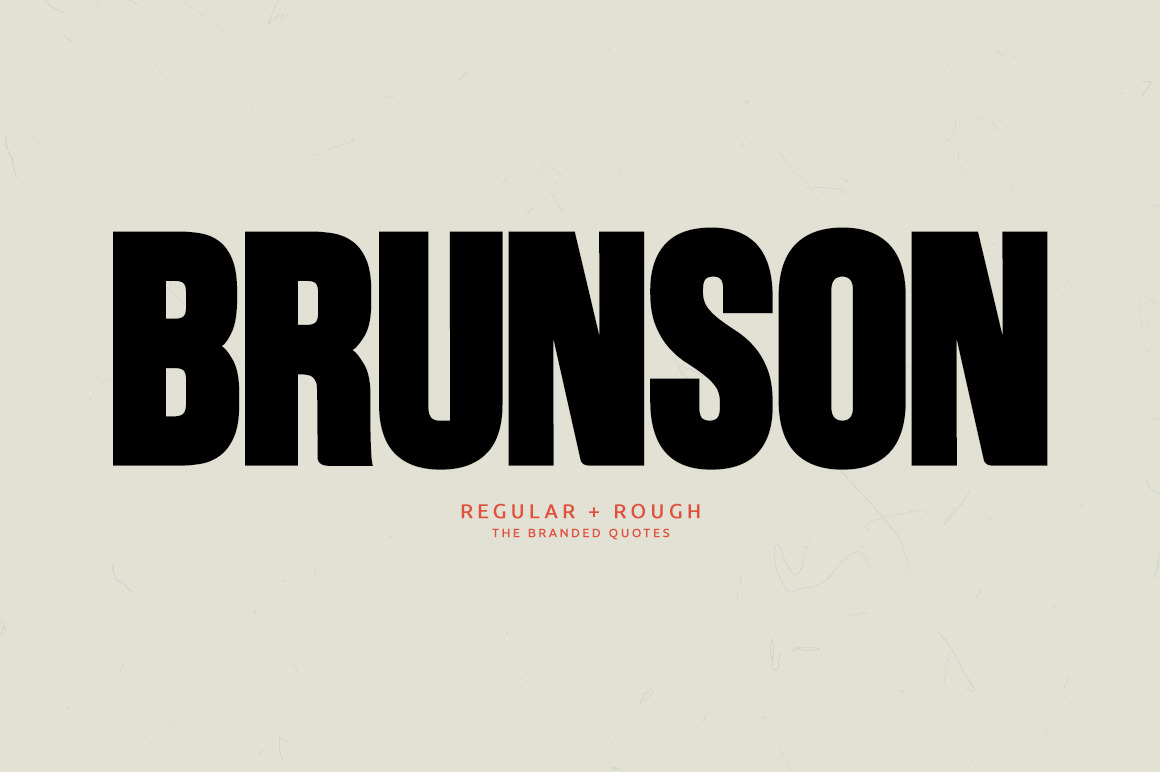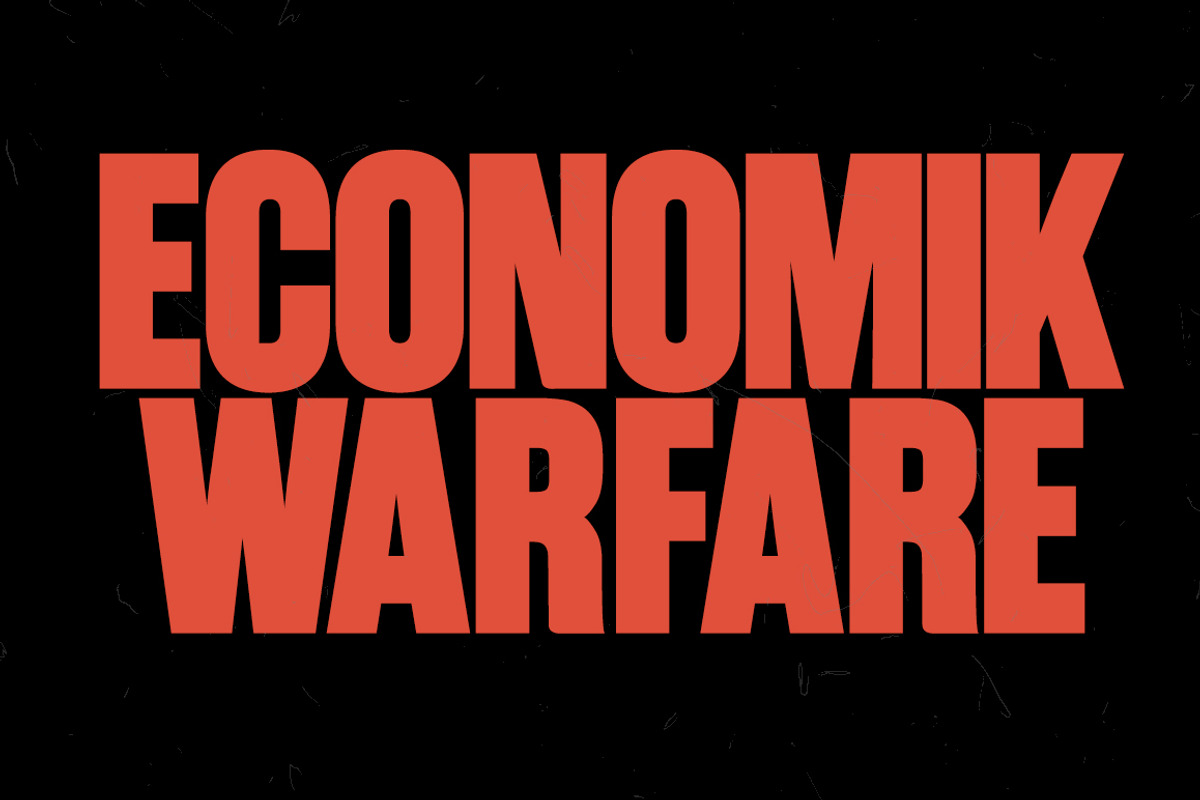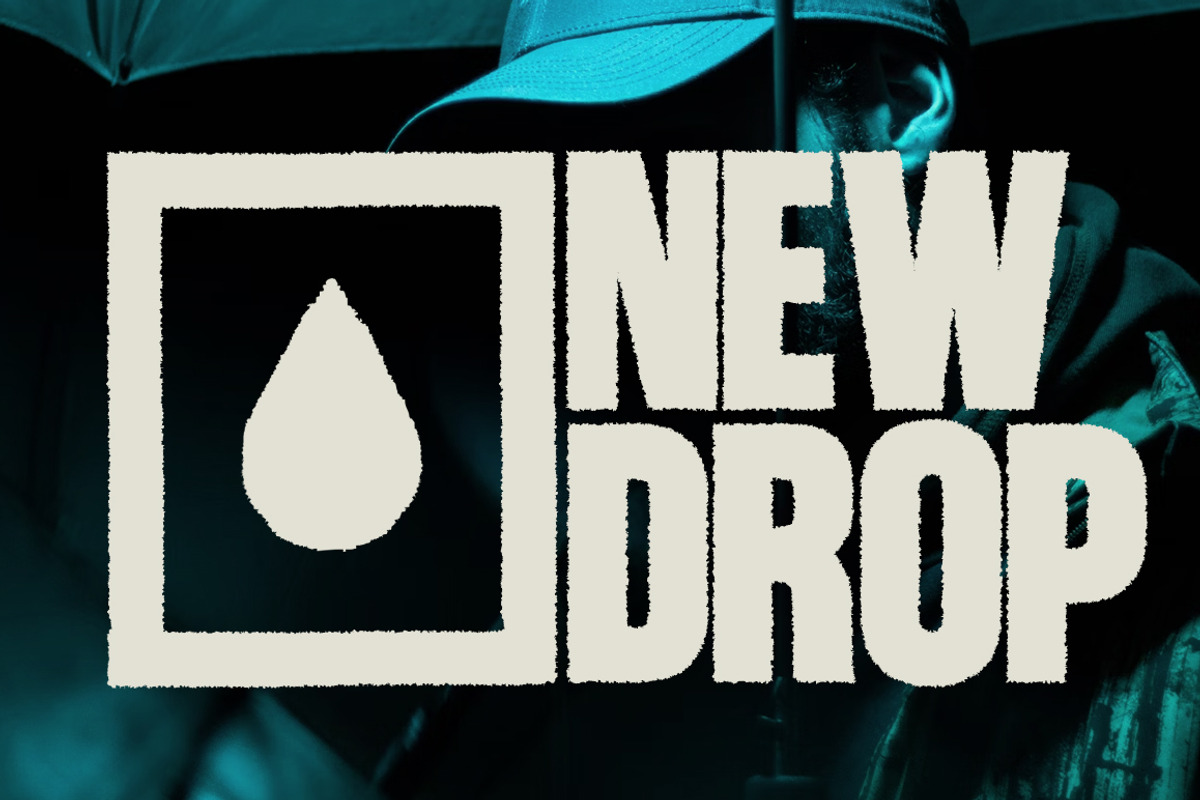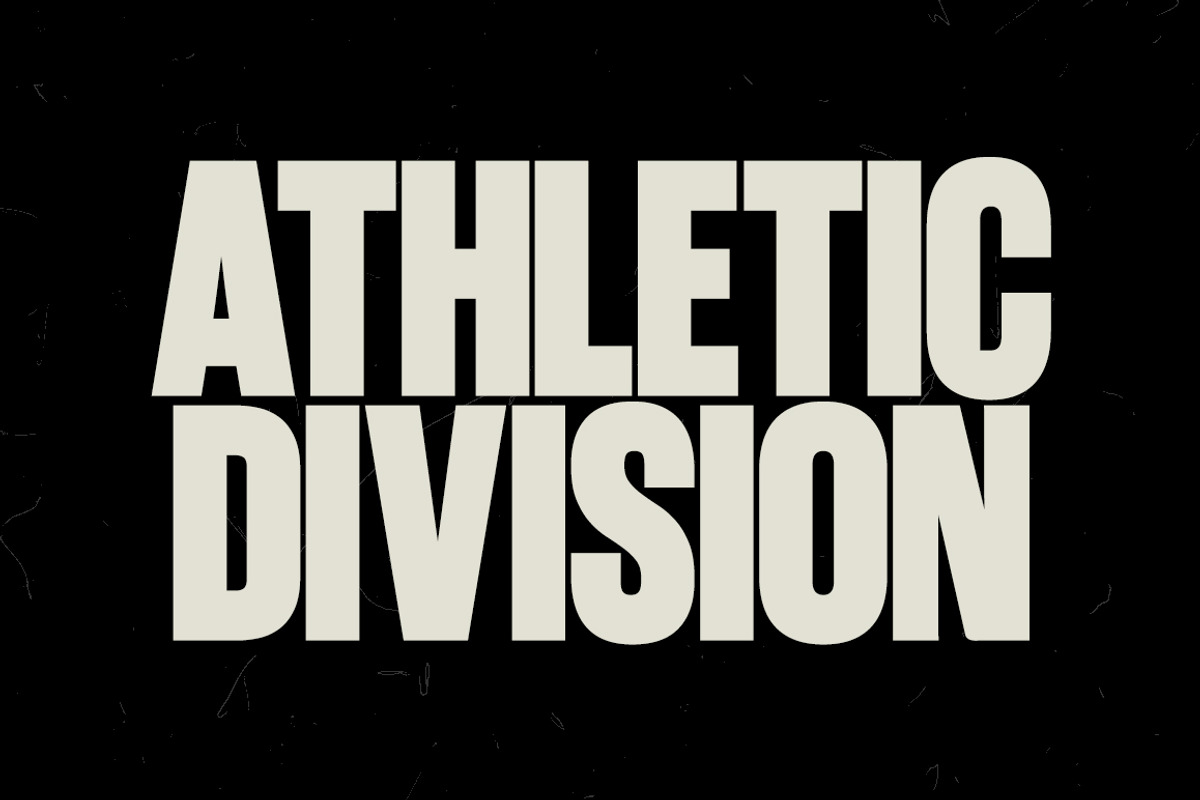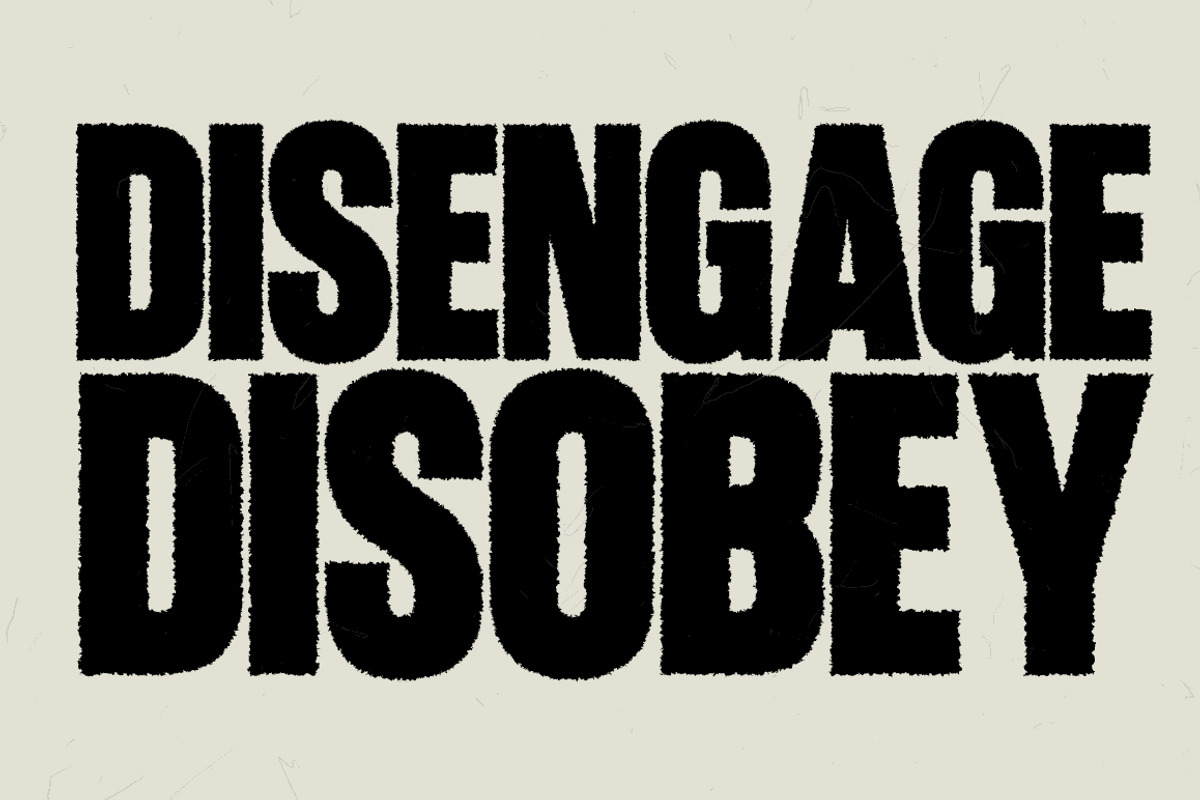
Brunson Font
Brunson is an extremely loud sans serif designed for diverse applications. Brunson Regular and Brunson Rough represent two distinct styles. Both fonts are well-suited for headlines, movie titles, revolutionary posters, digital banners, album covers, and more. Make your branding standout with the bold, heavy-lined characters of Brunson. The precisely tight kerning enhances the overall impact of your designs when using this font.
Brunson Regular - has the bold lines with sharp edges while an unexpected curves are found on selected glyphs.
Brunson Rough - has the squiggly sides but retains the sans serif look and sharp even weight of the font.